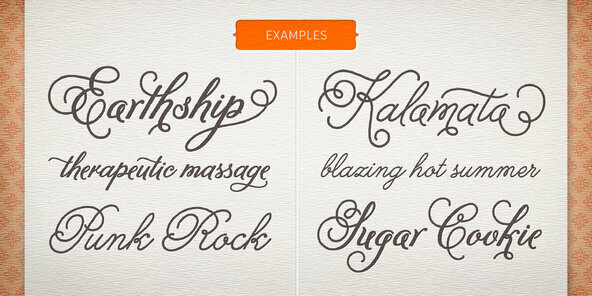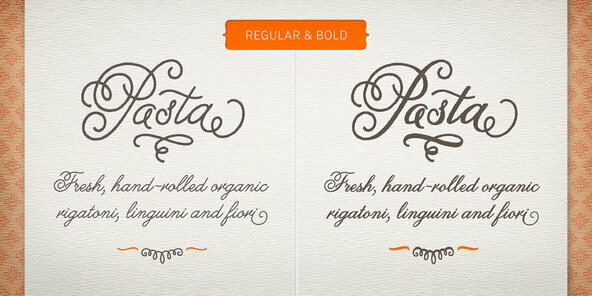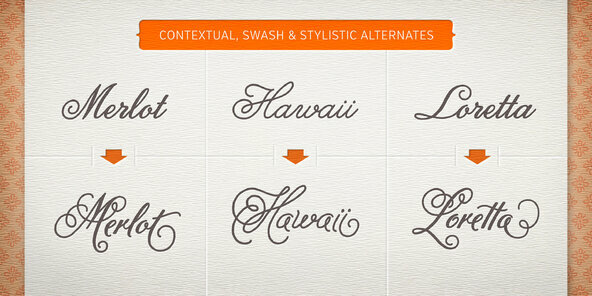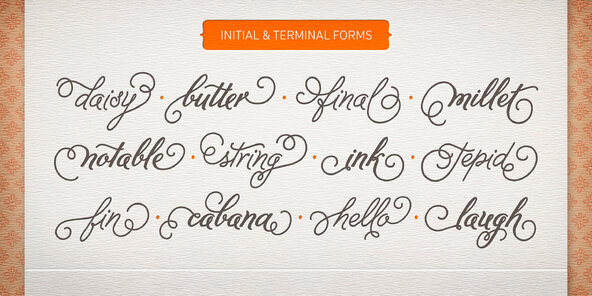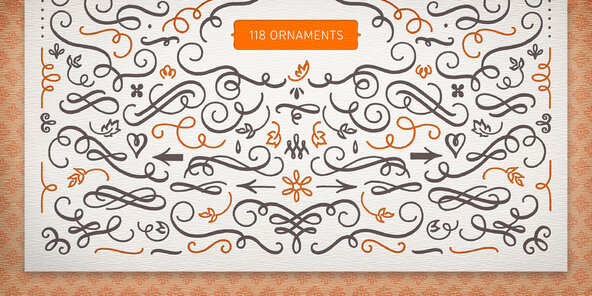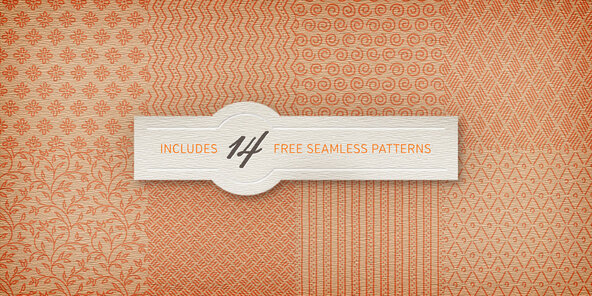
Melany Lane
Foundry: Yellow Design Studio
Melany Lane from Yellow Design Studio is a flourishy script based on traditional letterforms, but with the added quirks and warmth of hand-drawn type. The base character set has traditionally connected letters and an expressive charm. Contextual alternates add flair with unconnected letters and additional contour options. Mix in swash and stylistic alternates for extra funkiness and fun.
Melany Lane features regular and bold versions, 118 eclectic ornaments (also in regular and bold), and a free set of 14 seamless background patterns. It includes over 1300 glyphs and 364 ligatures that create interesting letter combinations and fix overlapping letter pairs. Opentype features including contextual alternates, swash, stylistic sets, ligatures, initial and terminal forms and old-style figures. It performs best with opentype friendly applications.